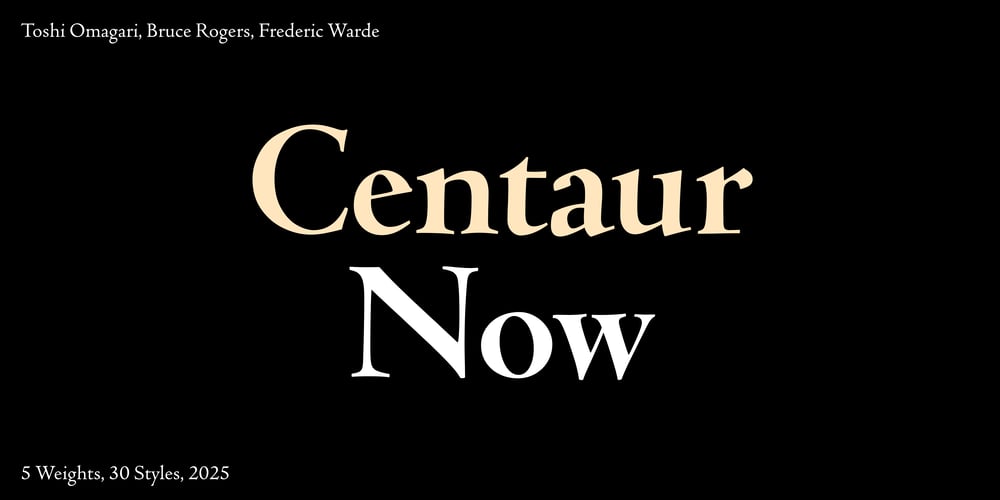
Centaur Now Font Family was designed by Frederic Warde, Bruce Rogers, Toshi Omagari and published by Monotype. Centaur Now contains 30 styles and family package options. Centaur Now is a new digital revival of Centaur which is renowned for its elegant character in book typography. The original Monotype Centaur was designed by American book designer Bruce Rogers based on the typeface by Nicholas Jenson from the 1470. The italic was done by Frederic Warde, an American typography researcher, inspired by the italic works of Ludovico degli Arrighi. Centaur Now captures the elegance of the original. Its delicate character is most prevalent in the display version, and more toned down in text and caption versions in favour of robustness and legibility.